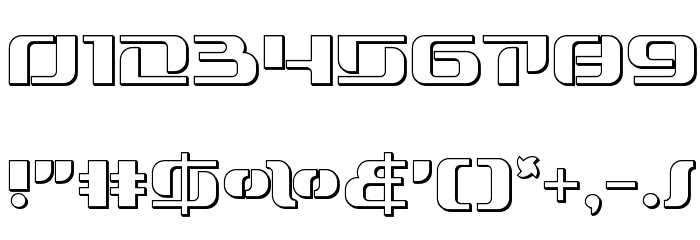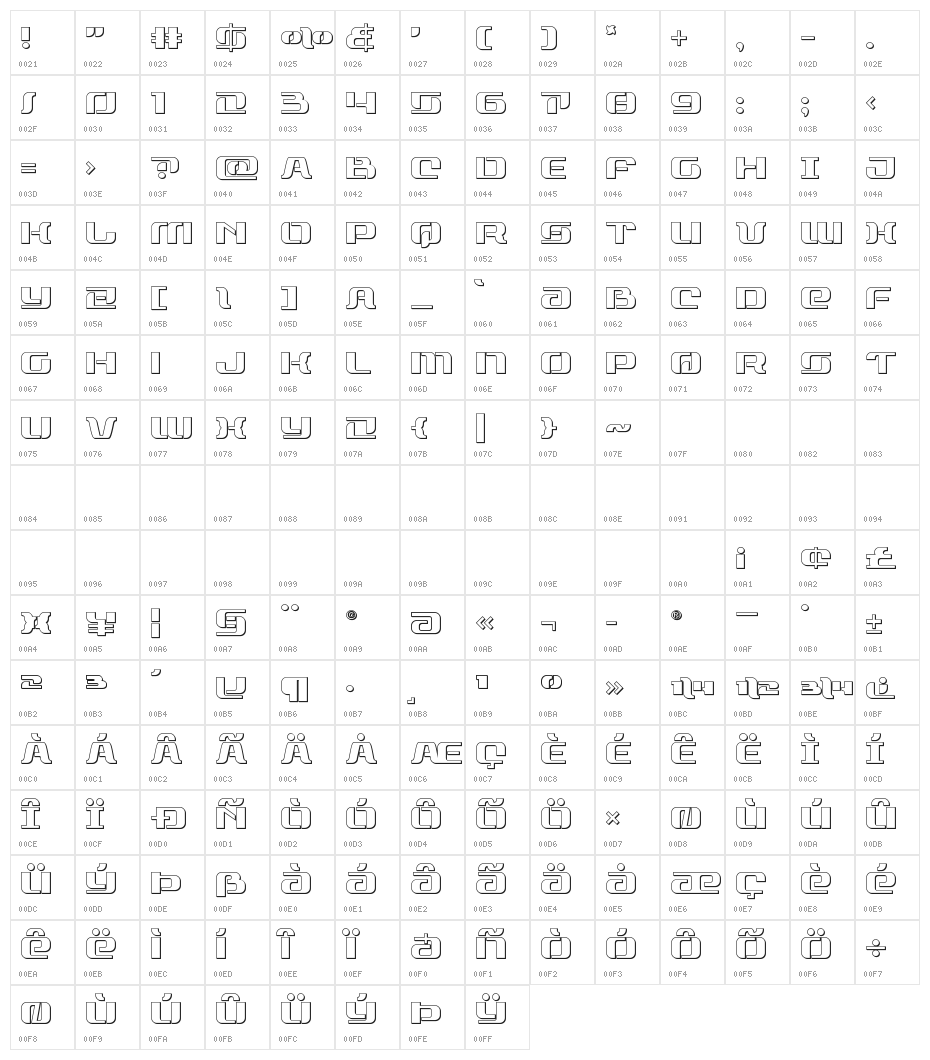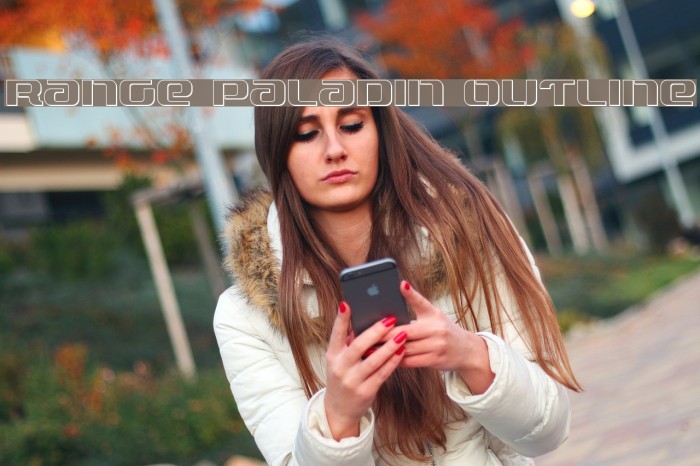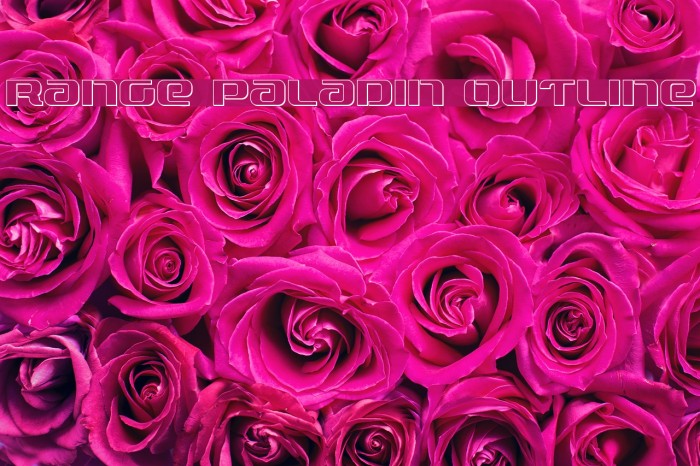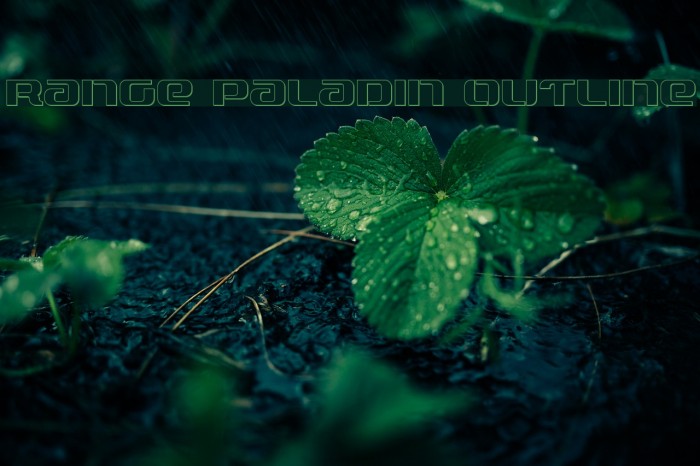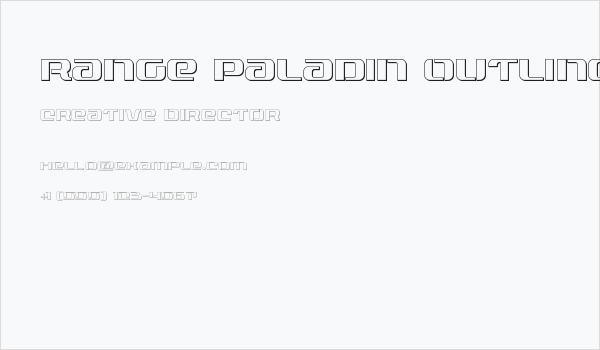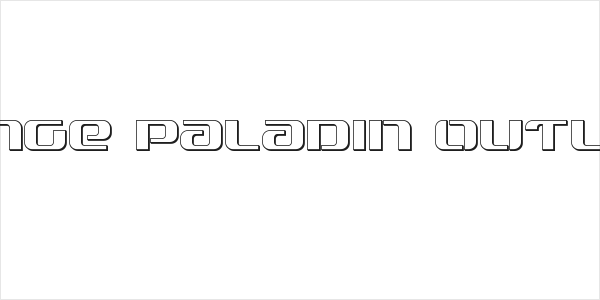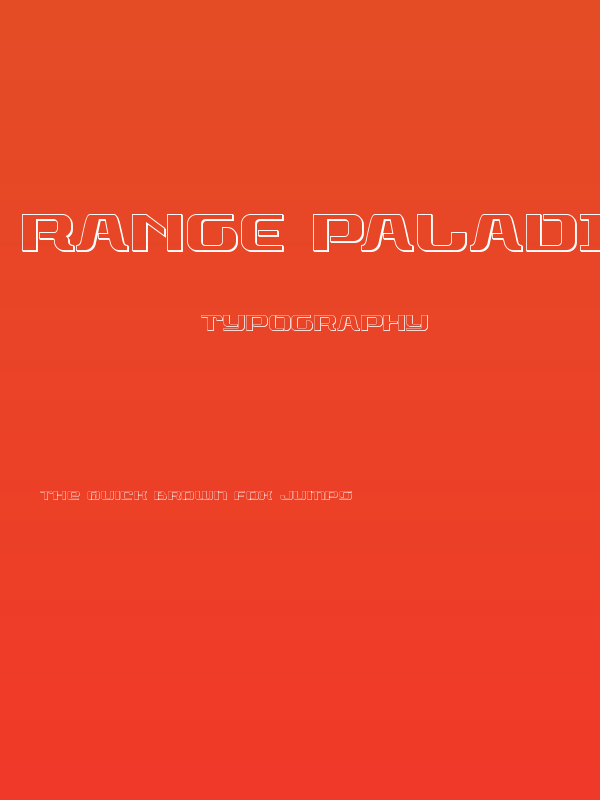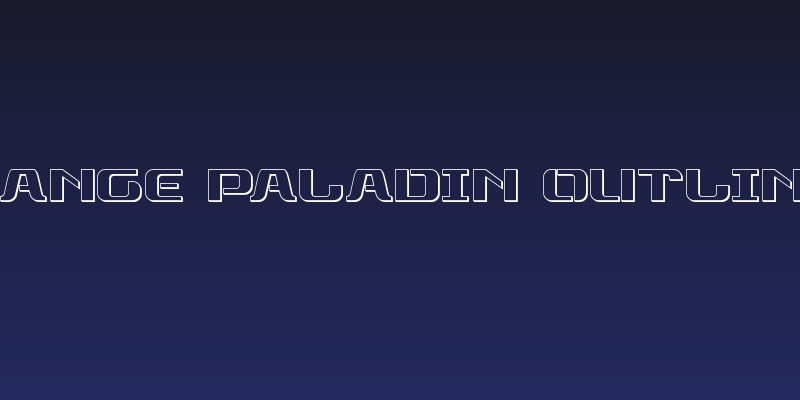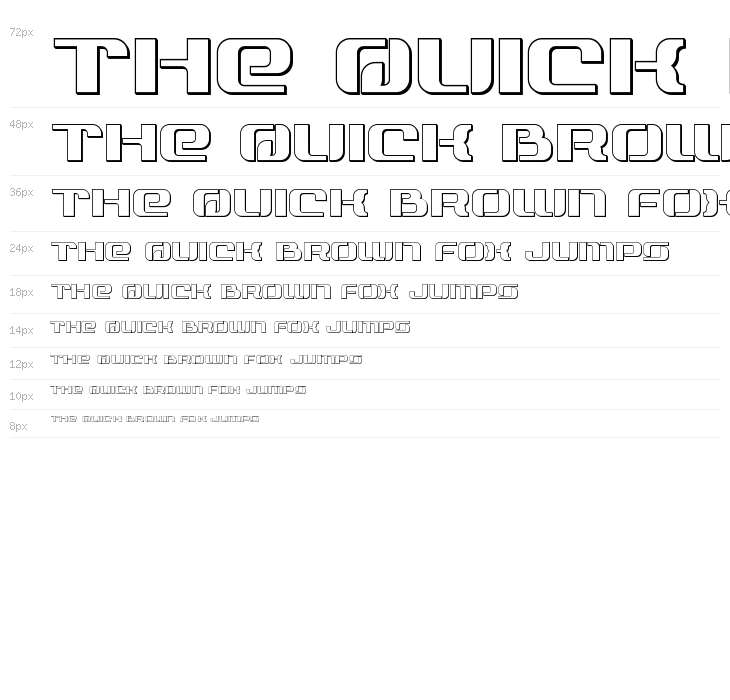
Range Paladin Outline Font
Range Paladin Outline Description
This font features a bold, outlined style with a futuristic and geometric design. Each character is crafted with clean lines and a consistent outline thickness, giving it a distinct and modern appearance. The uppercase and lowercase letters maintain a uniform structure, while the numbers and special characters complement the overall aesthetic. The font's design is both eye-catching and versatile, making it suitable for a variety of creative applications. Its unique outline style adds a layer of depth and dimension, enhancing its visual appeal.
| Proposed Projects | Ideal for branding, posters, digital artwork, and any project requiring a modern and striking typeface. |